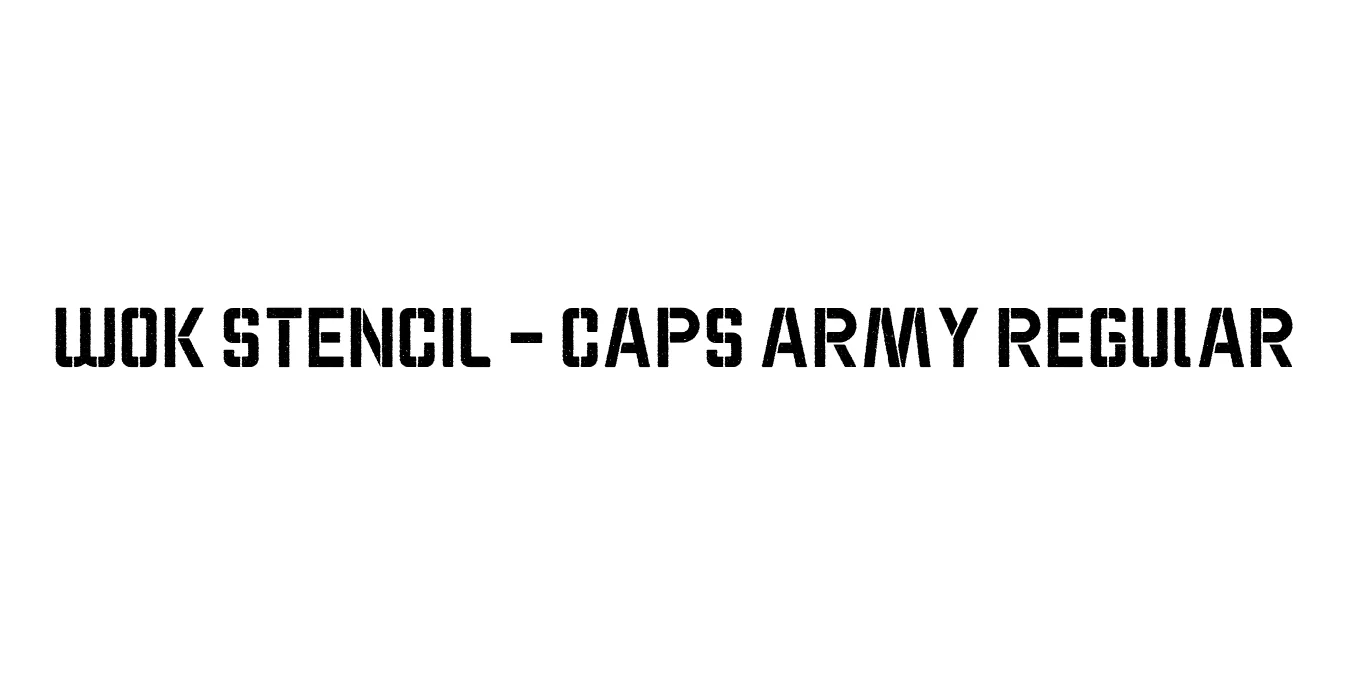
WOK STENCIL - CAPS ARMY Regular
Designed by Wok Design Studio
WOK STENCIL - CAPS ARMY Regular is a robust and commanding stencil typeface designed to evoke the raw strength of military aesthetics. It features bold, geometric letterforms with clean cutouts that maintain legibility even at large scales. The design is heavily inspired by traditional industrial and army-grade markings, making it an ideal choice for projects requiring a sense of authority, grit, and structural integrity.
This typeface is categorized under the Display and Stencil genres, providing a versatile tool for high-impact visual communication. Whether used for branding, posters, or architectural signage, the CAPS ARMY weight ensures a powerful presence. Its all-caps nature emphasizes its role as a headline font, perfect for modern streetwear brands, action movie titles, and sports-related graphics that demand immediate attention.
WOK STENCIL - CAPS ARMY Regular Best Uses
Creating powerful logos for fitness, outdoor, or survival brands.
High-impact headlines for event posters and cinematic titles.
Clear and authoritative industrial or architectural signage.
Bold text for streetwear and military-inspired clothing lines.